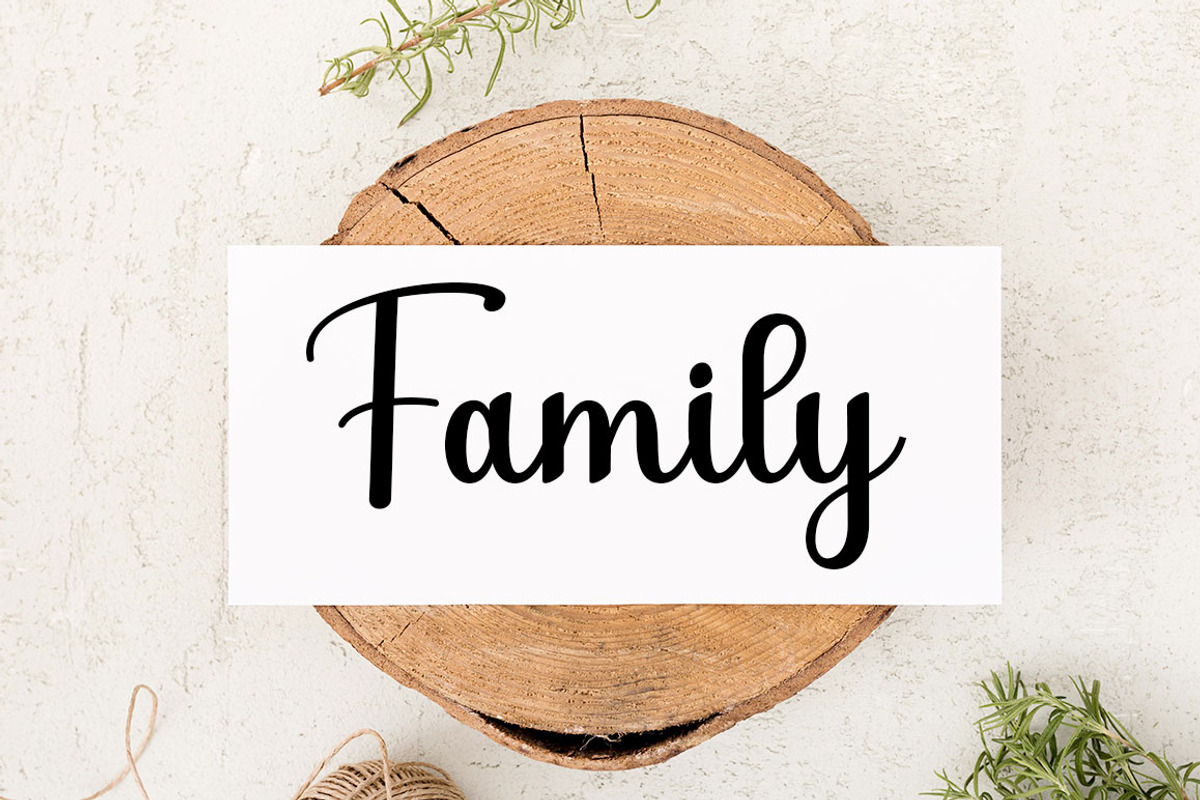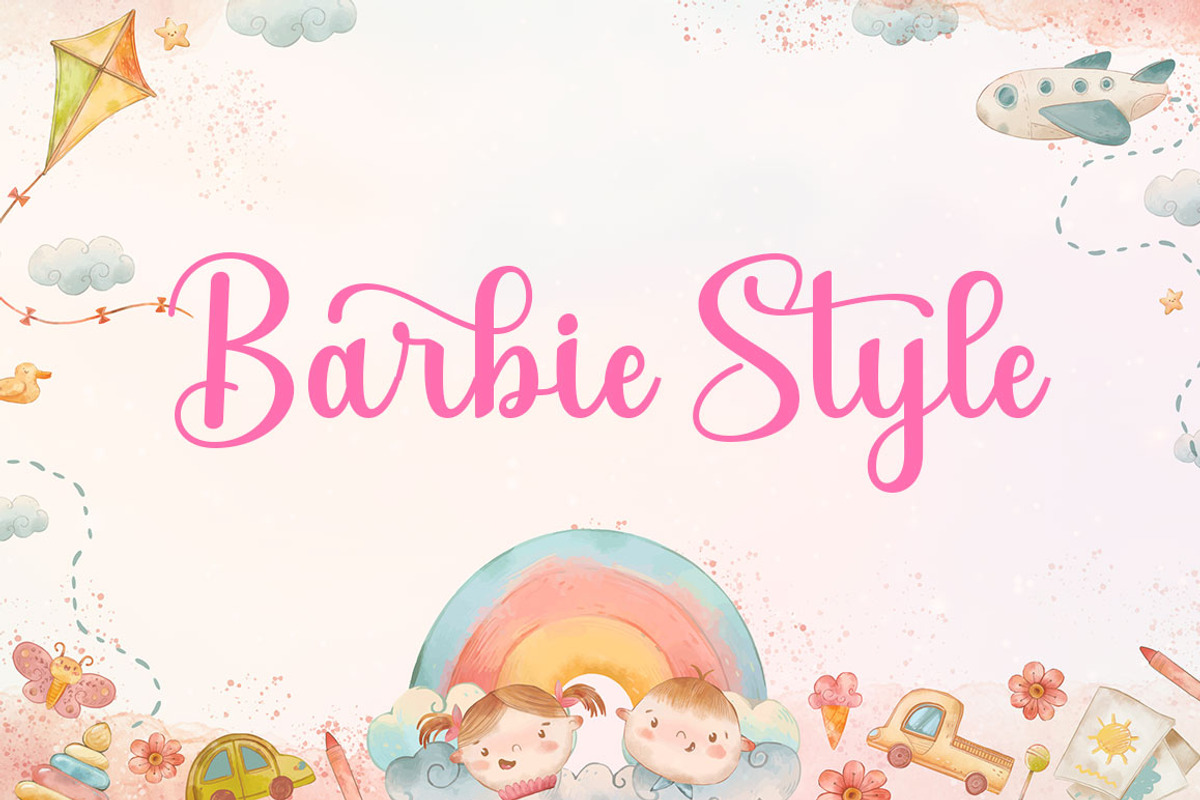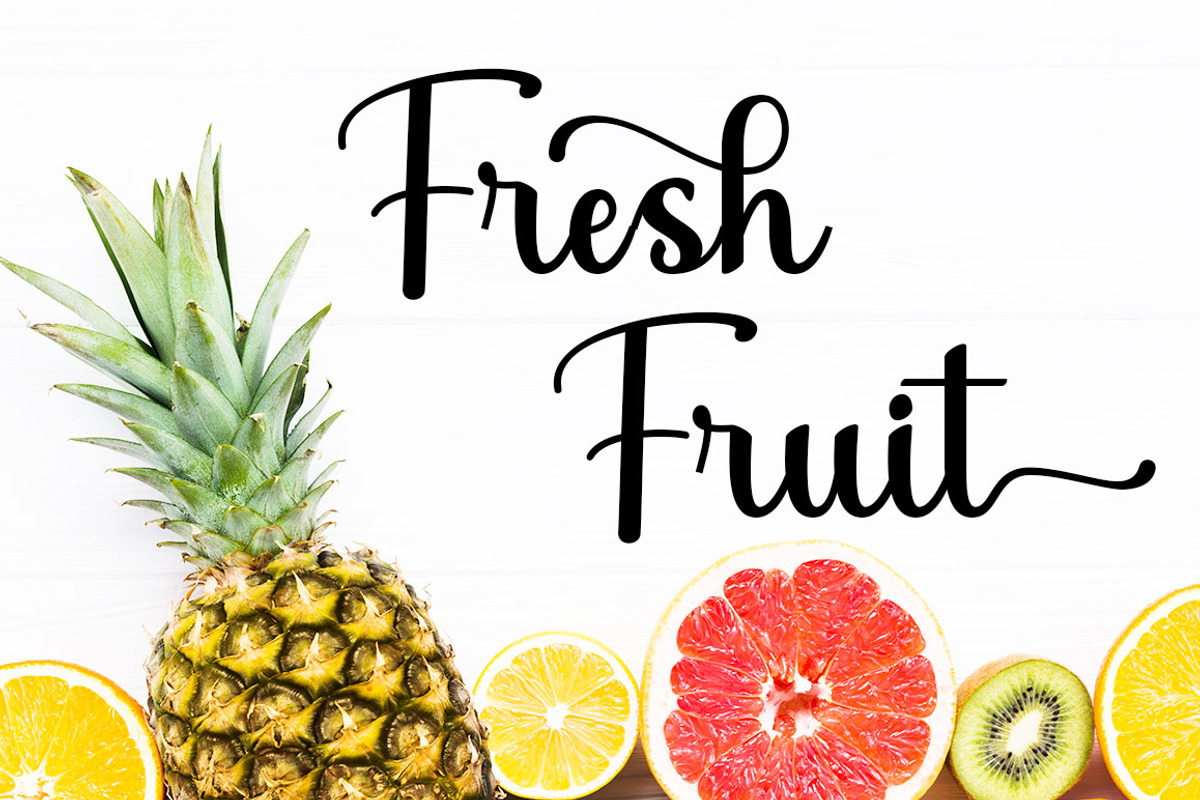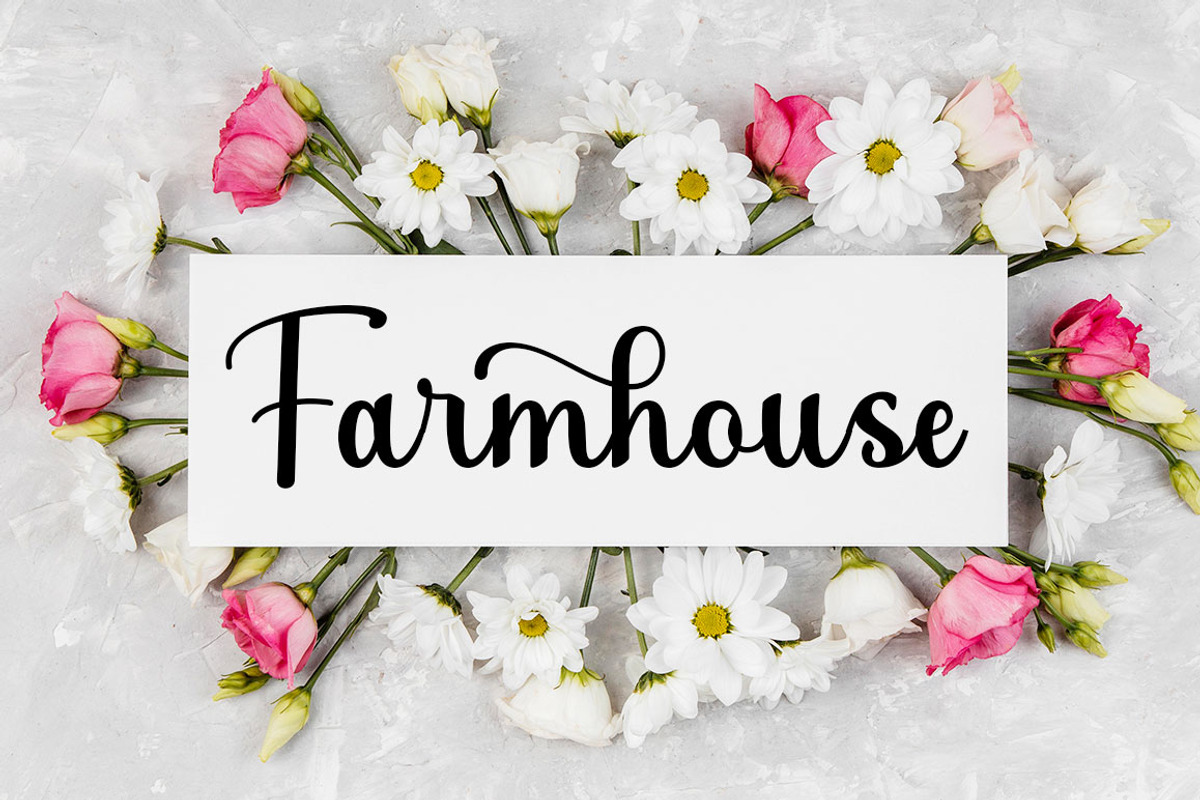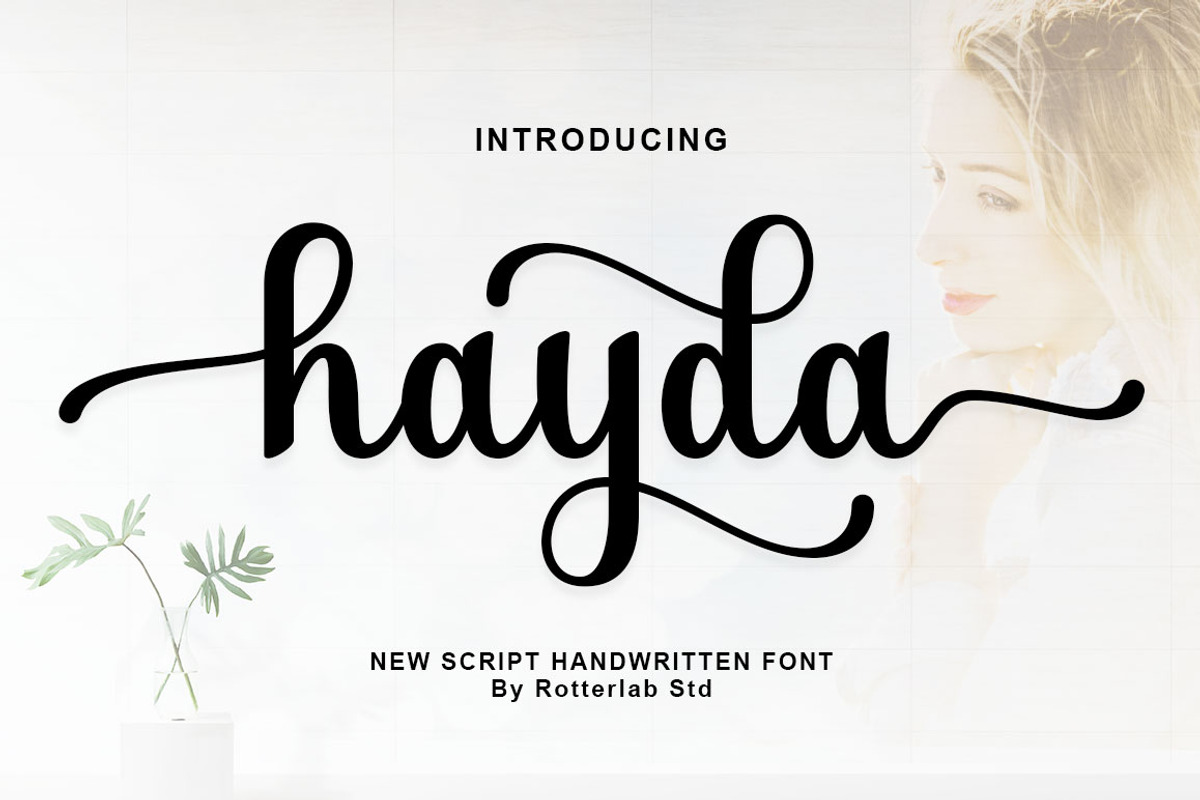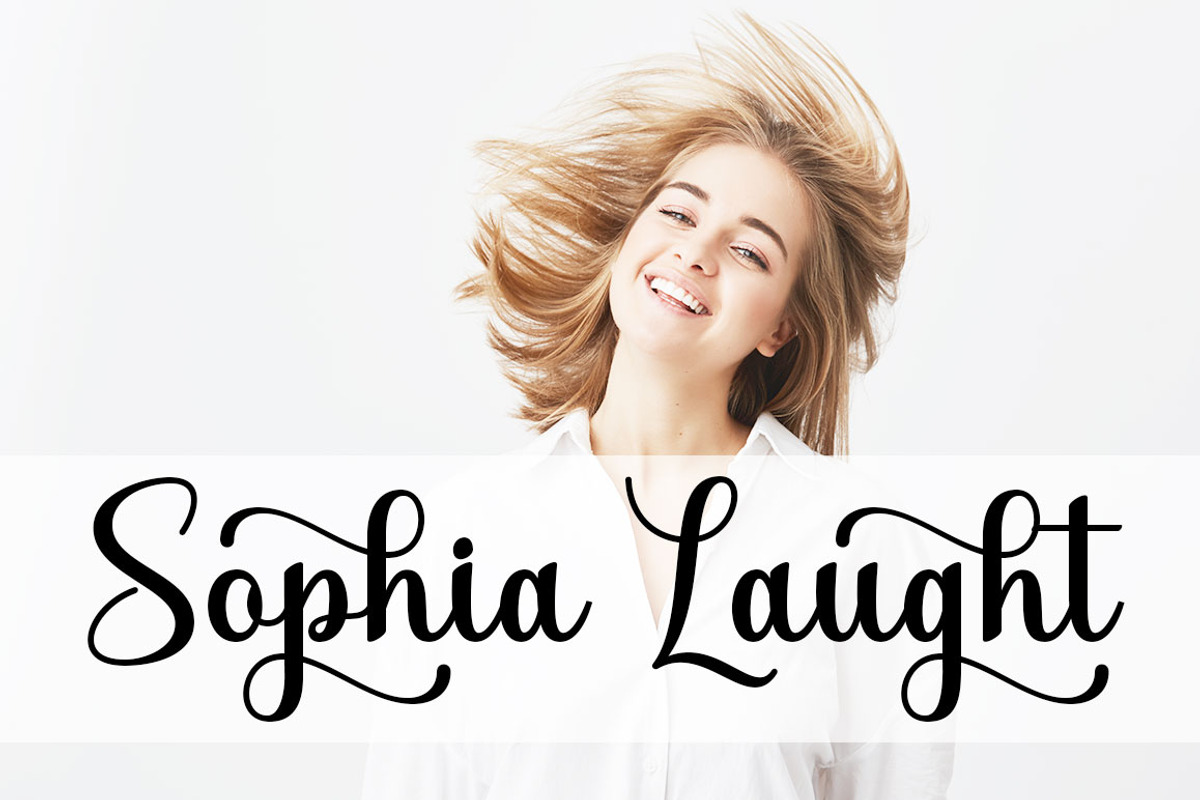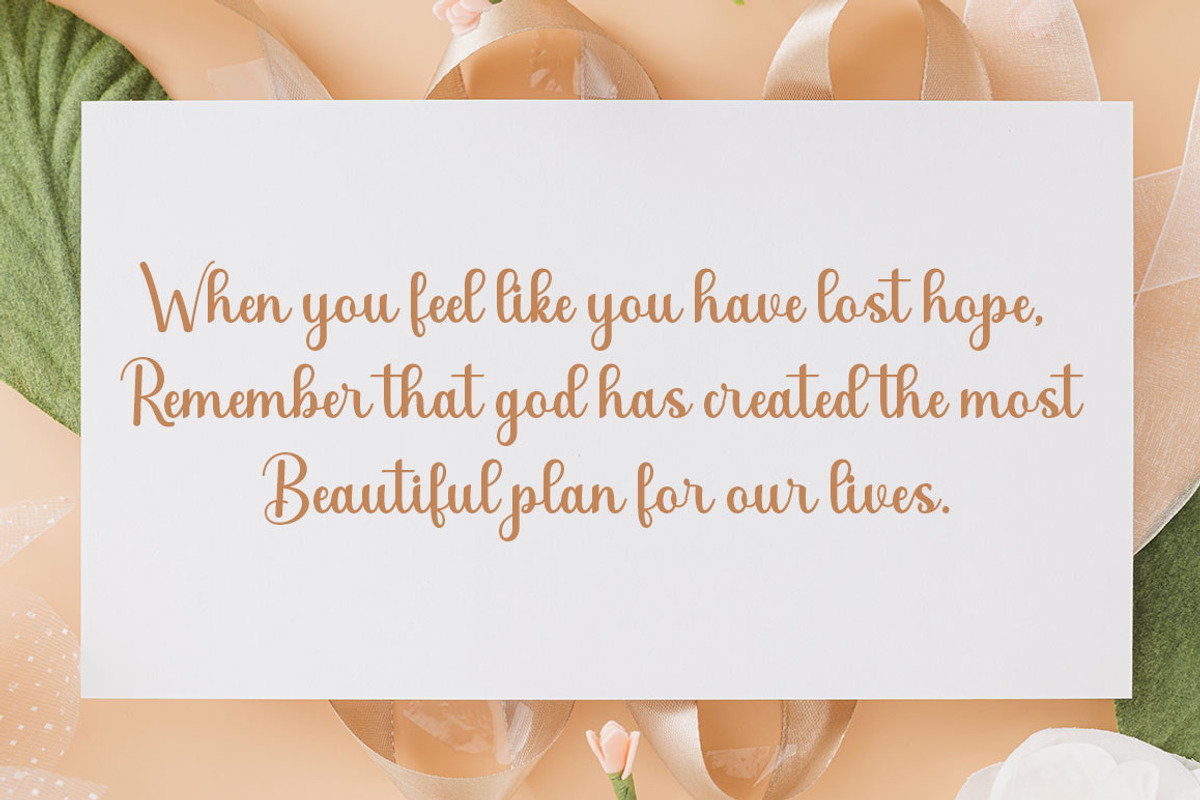
Hayda Script
Proudly Present, Hayda Script.
Hayda Script is a cute modern calligraphy font.
Hayda Script is perfect for product packaging, branding project, megazine, social media, wedding, or just used to express words above the background.